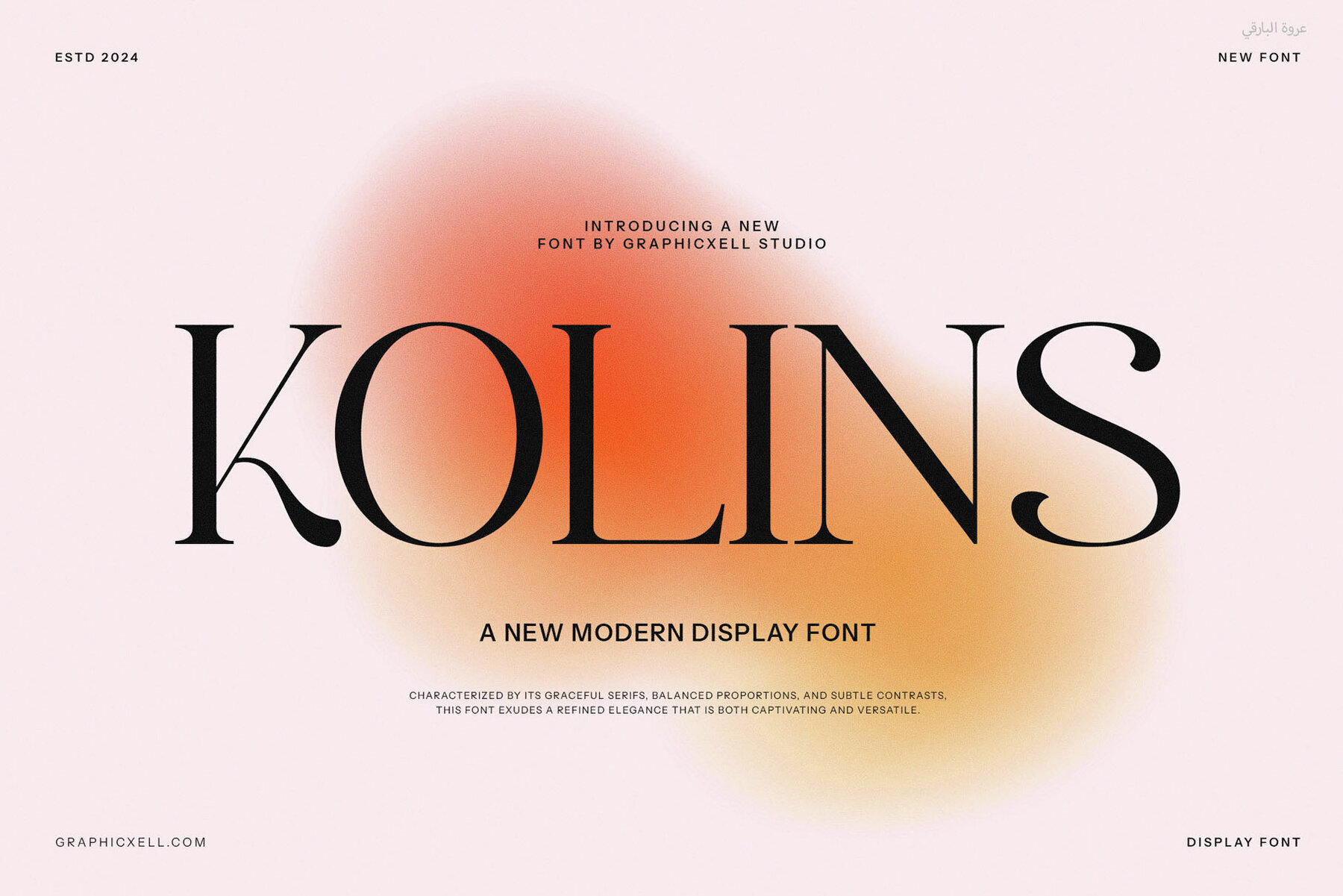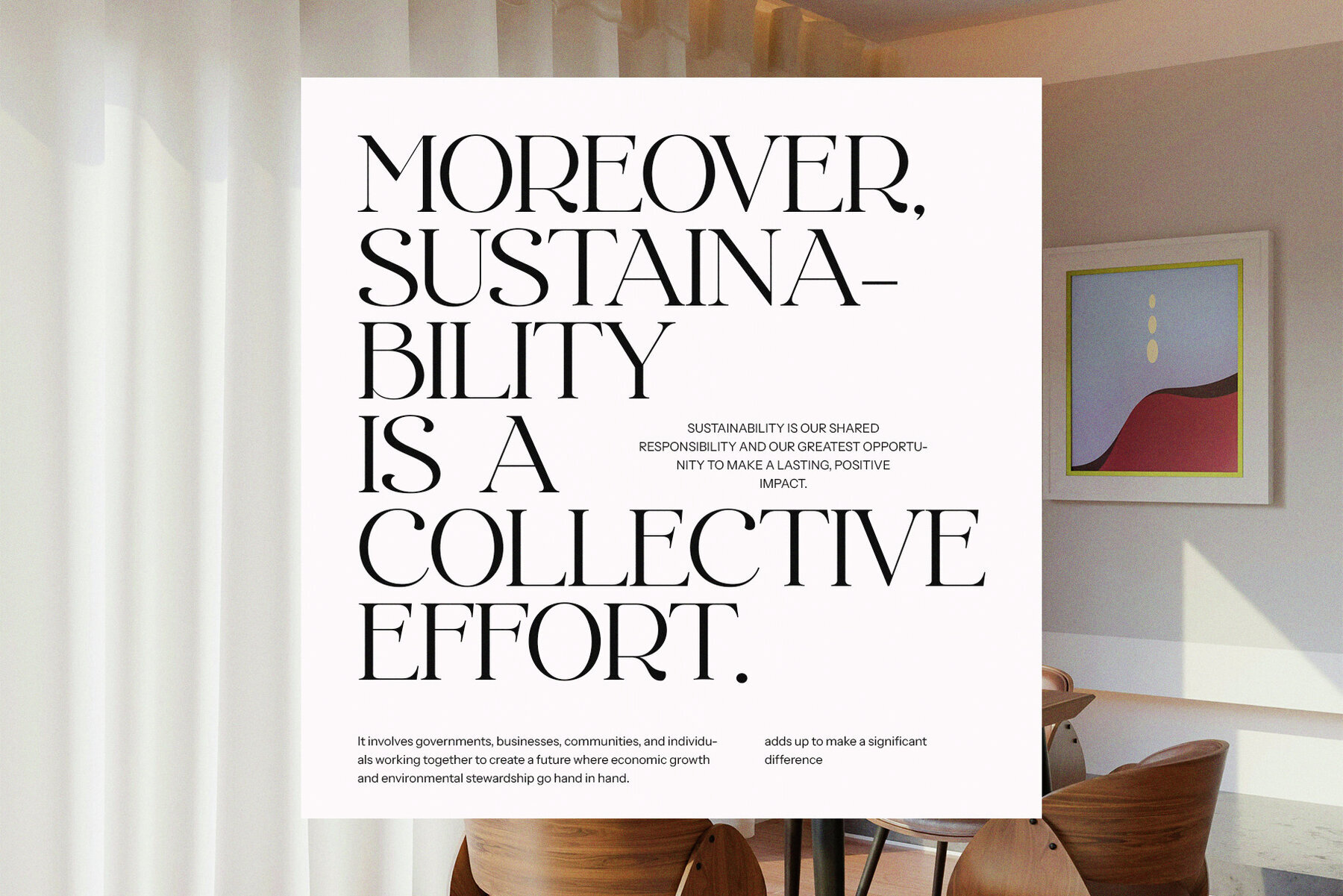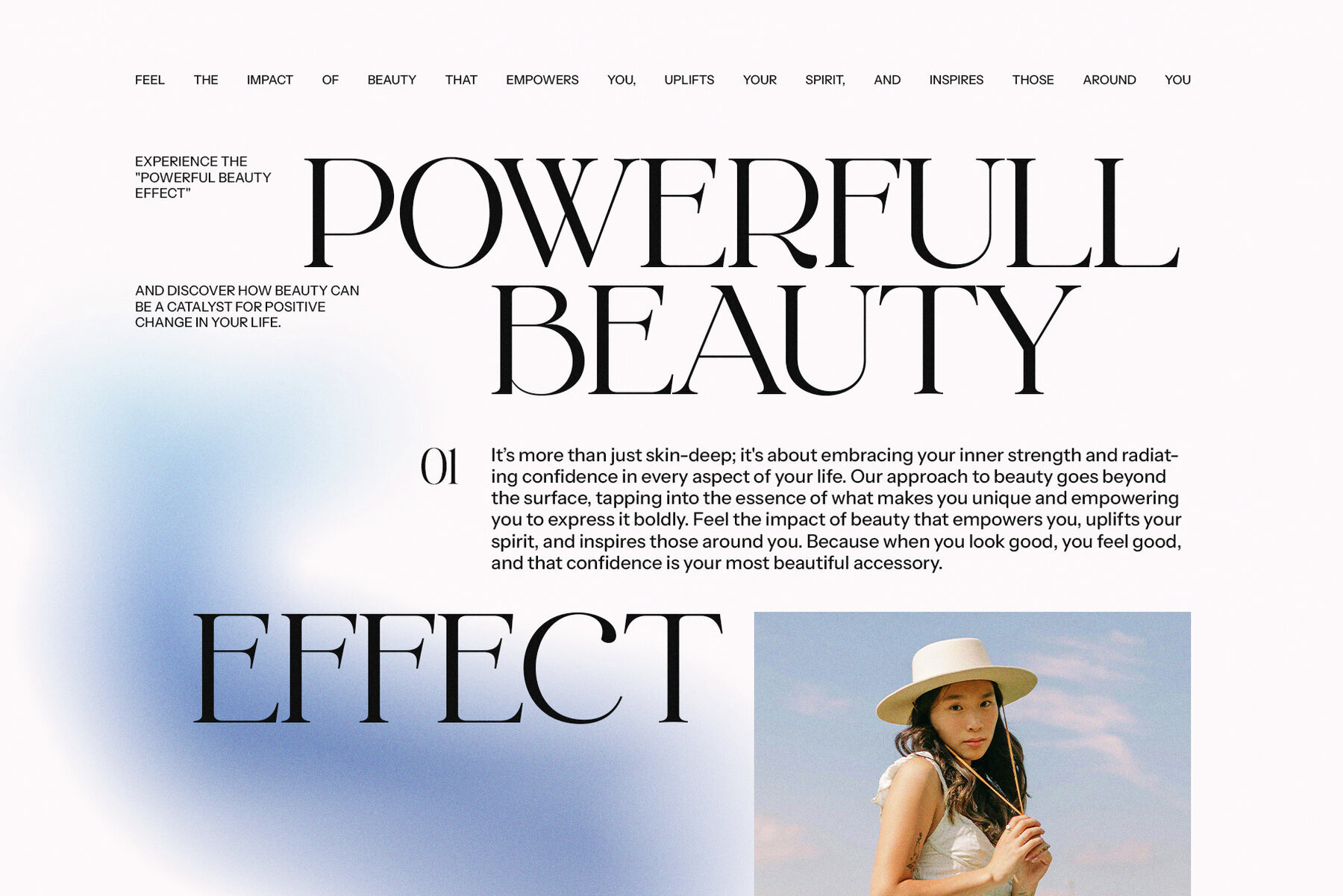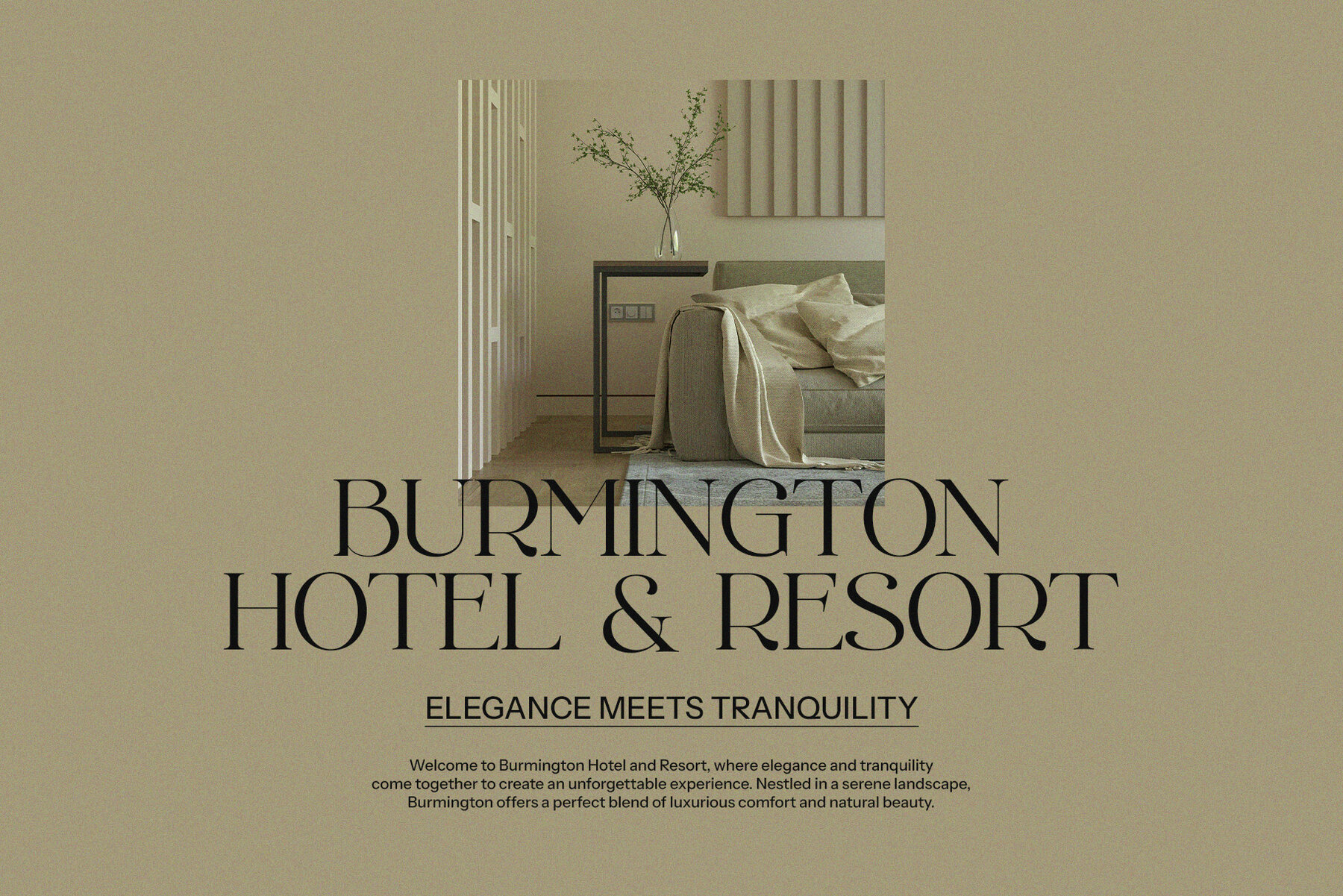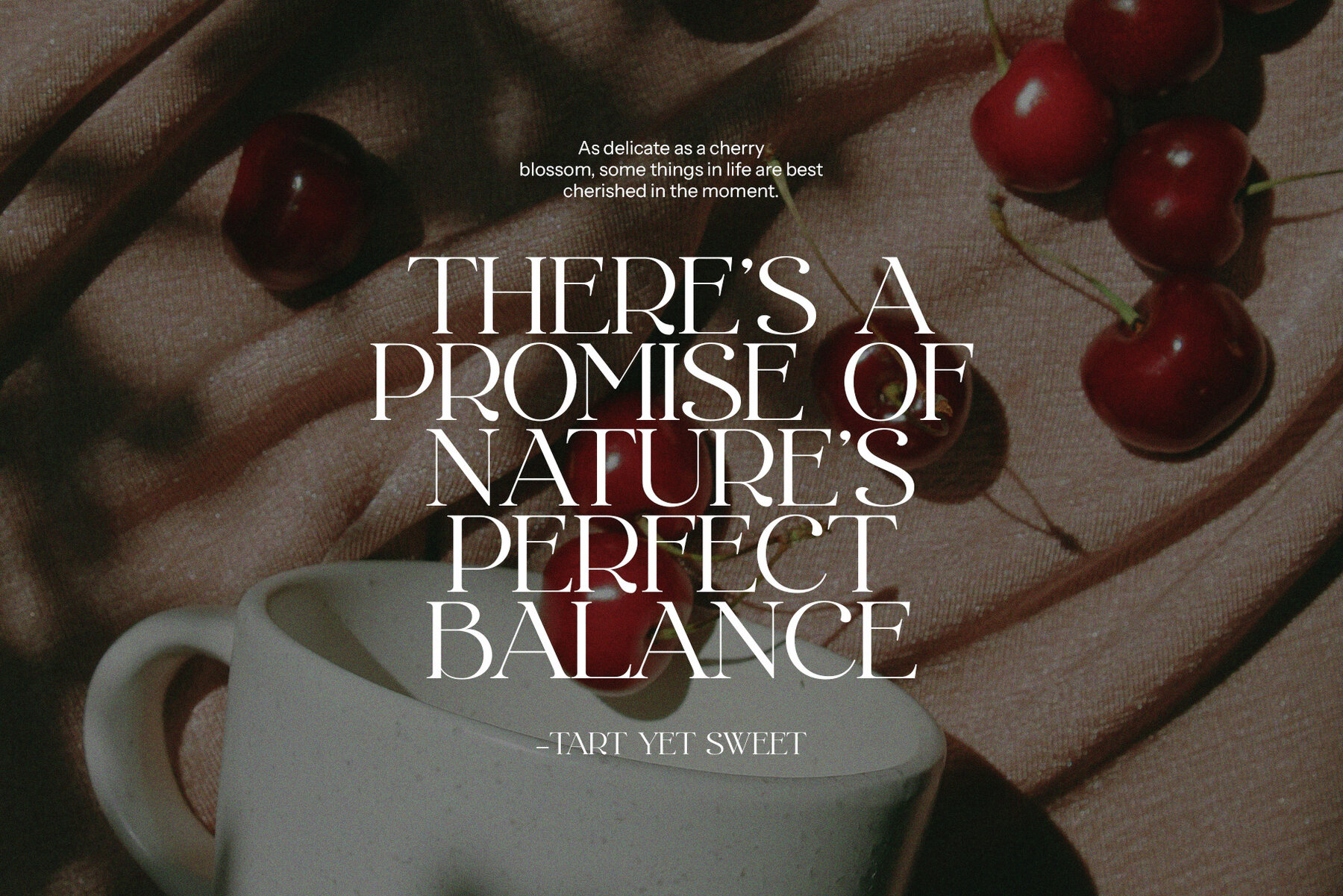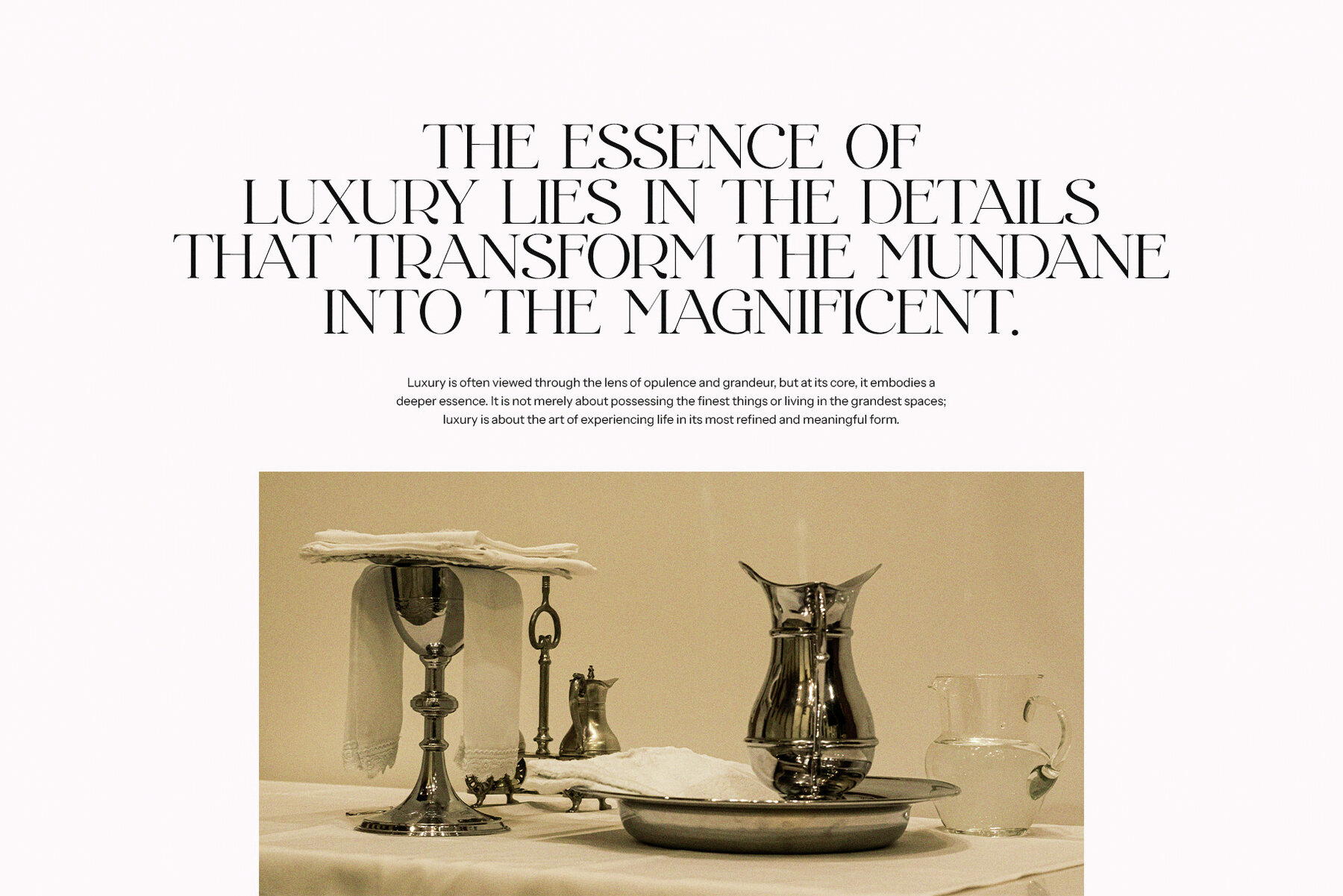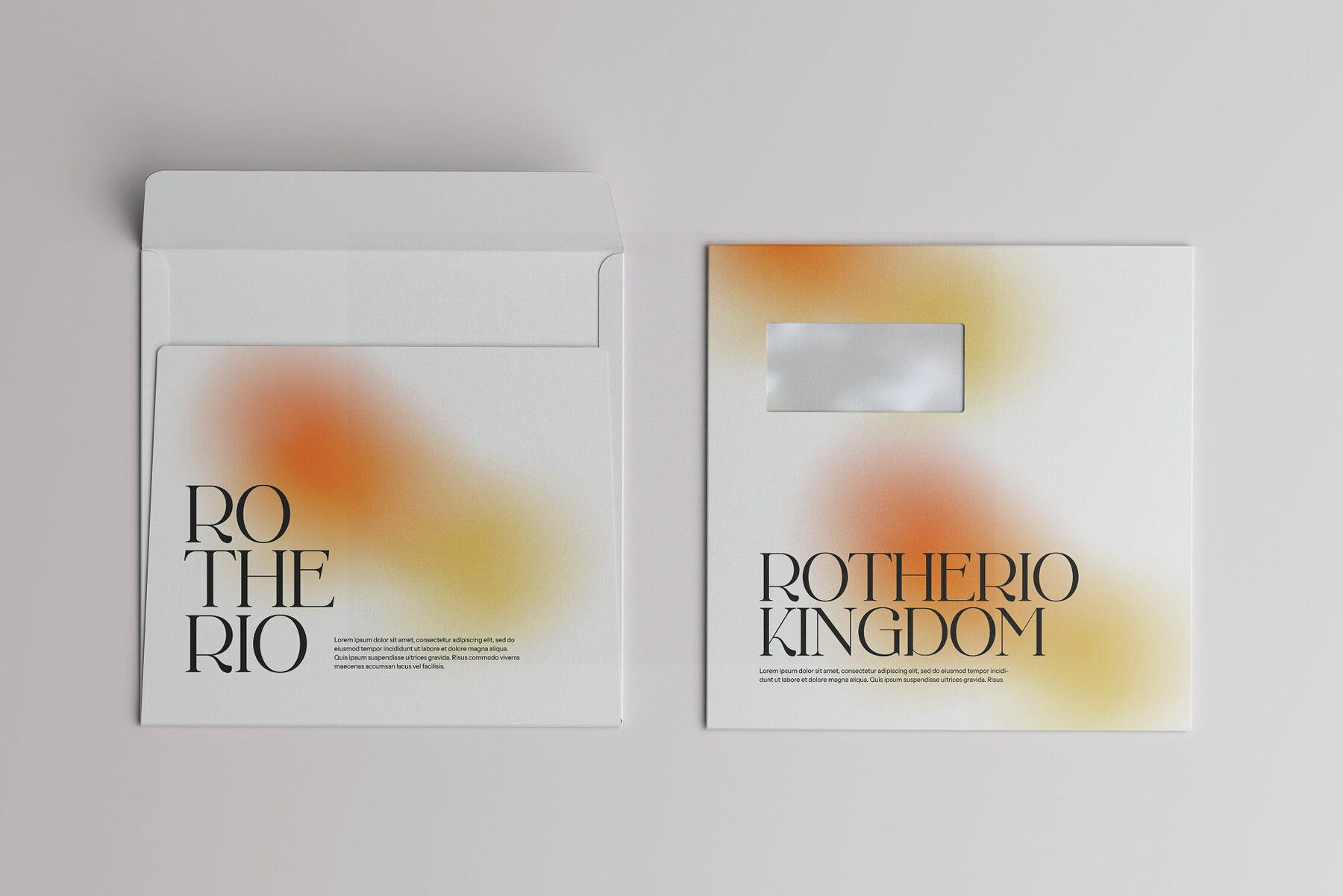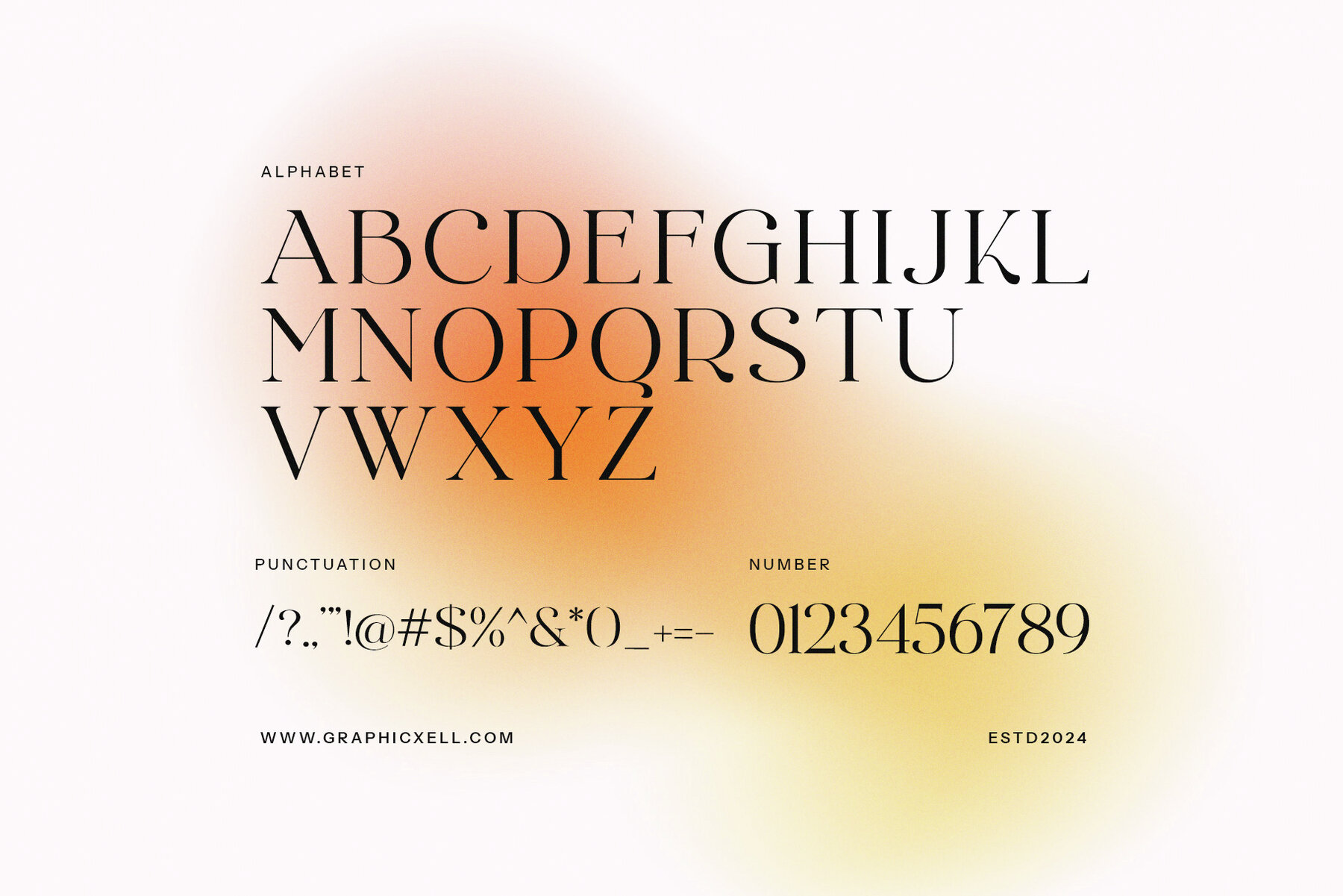
Kolins Font
Kolins
Kolins seamlessly combines elegance with a contemporary edge, making it a versatile choice for a wide range of creative endeavors. The font features refined serifs and clean lines that exude sophistication while maintaining readability. With its unique blend of traditional serif elements and a modern twist, Kolins boasts a well-balanced design, guiding the eye smoothly across the text. The varying stroke thickness adds depth and character, offering a striking and professional appearance. This makes Kolins particularly effective for projects that demand a touch of prestige and credibility, such as logo design and branding initiatives.
Beyond branding, Kolins shines in magazine layouts and advertising. Its clean lines and sophisticated look are perfect for both headlines and body text, ensuring clarity and aesthetic appeal. The font’s modern aesthetic captures attention in promotional materials, both in print and digital formats, with authority and elegance. Its adaptability extends to product packaging, enhancing visual presentation and helping products stand out. Embraced by designers for its ability to blend into styles from minimalist to ornate, Kolins remains a timeless choice. Its balance of elegance and modernity makes it an invaluable asset for diverse projects, supporting long-term branding endeavors with its enduring appeal.